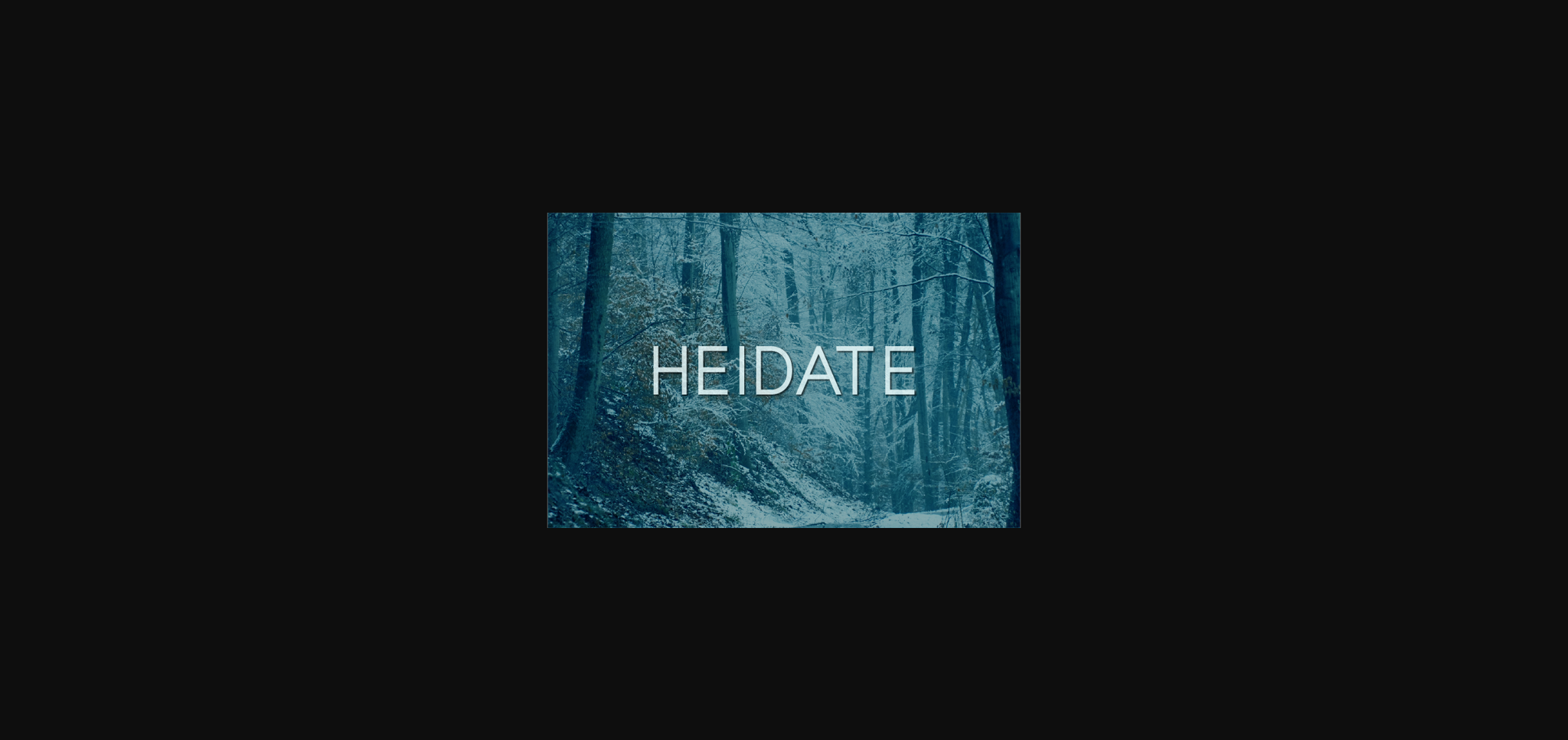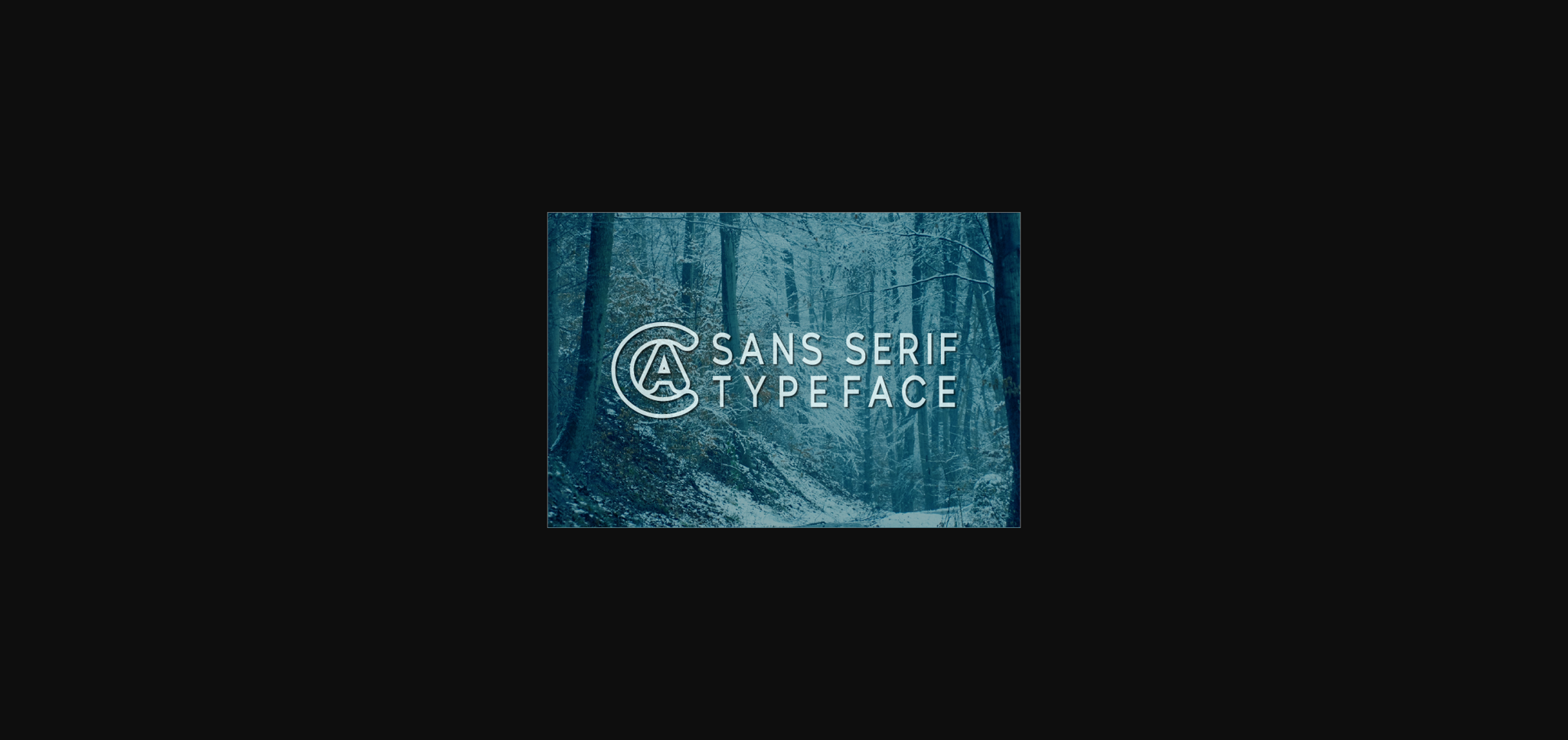
HomeSans Serif FontsHeidate Font Sans Serif Fonts Heidate Font FacebookXPinterestWhatsApp 1 of 5 ... Heidate Font Poster 2... Heidate Font Poster 3... Heidate Font Poster 4... Heidate Font Poster 5... About Heidate Font Heidate is a classy sans serif font. Simple and easy to use, this font will be very beautiful if you mix it with your various craft designs. DOWNLOAD NOW People also explored GGX89 Farmer Market Font Hatton Font December Font Eathelin Font Sabrina Font Takeaway Jee Wish Font Findastone Font 386 0 TagsHeidateHeidate Font Previous articleSquiver FontNext articleRezeltye Font LEAVE A REPLY Cancel reply Comment: Please enter your comment! Name:* Please enter your name here Email:* You have entered an incorrect email address! Please enter your email address here Website: Save my name, email, and website in this browser for the next time I comment. Personal Use Free Just Love Personal Use Free Read more about this font Charletto Personal Use Free Read more about this font Bukan Personal Use Free Read more about this font Pretender Personal Use Free Read more about this font BLOG Free vs Paid Fonts: Why Investing in Premium Fonts Is Worth It Free vs Paid Fonts: Why Premium Fonts Are Worth It in 2025 The debate of free vs paid fonts continues in the design world. While... To increase your work productivity, choose the most readable fonts. Top 7 Google Fonts Alternatives for Faster and Privacy-Friendly Web Design (2025) Elegant Wedding Invitation Fonts – Handwritten & Script Fonts